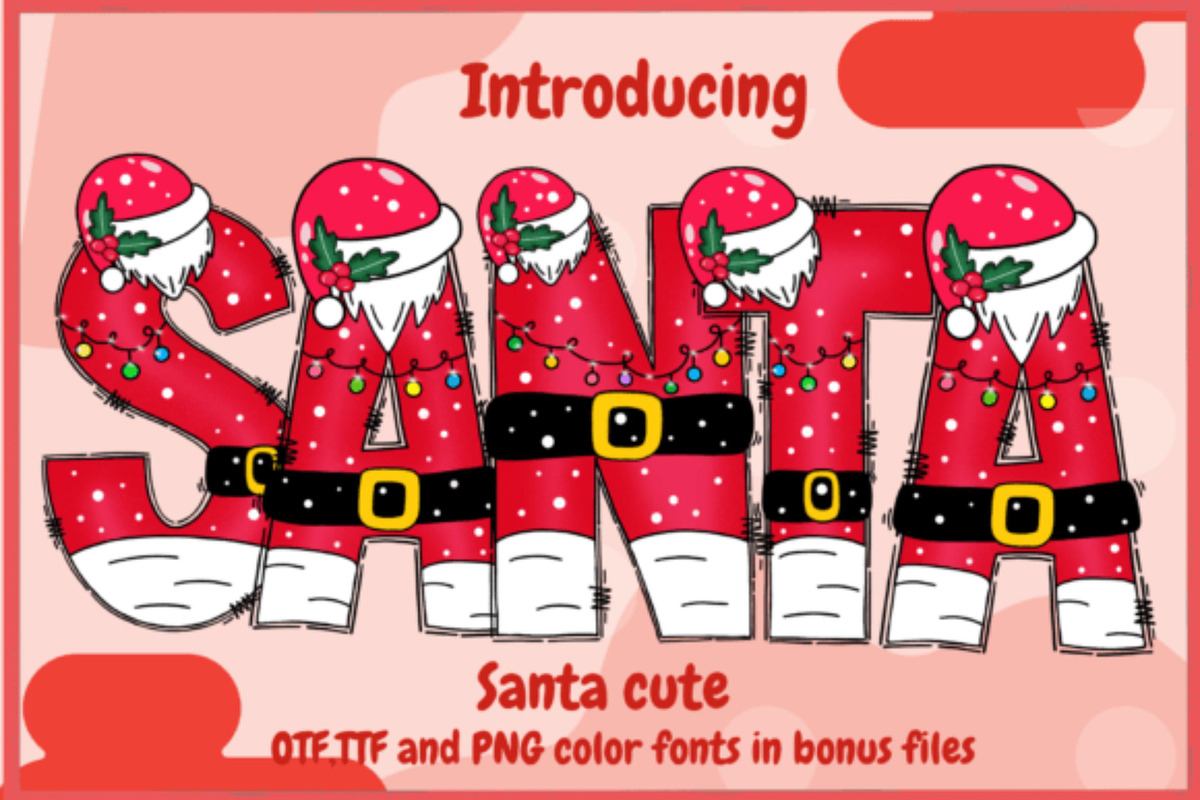
Santa Cute Fonts | PNG OTF TTF Free Download is a jolly and heartwarming typeface set that brings holiday cheer to any design. With its adorable characters, festive flair, and playful style, this font is perfect for Christmas cards, kids’ holiday crafts, winter merchandise, social media content, and festive packaging. Available in PNG, OTF, and TTF formats, it's super versatile and ready for both print and digital use.
Santa Cute Fonts | PNG OTF TTF Free Download features bold, rounded letters with just the right touch of seasonal sparkle. It’s designed to be eye-catching and easy to read, making it ideal for creating joyful, family-friendly holiday designs. The included PNG assets also make it easy to add festive graphics to your layouts.